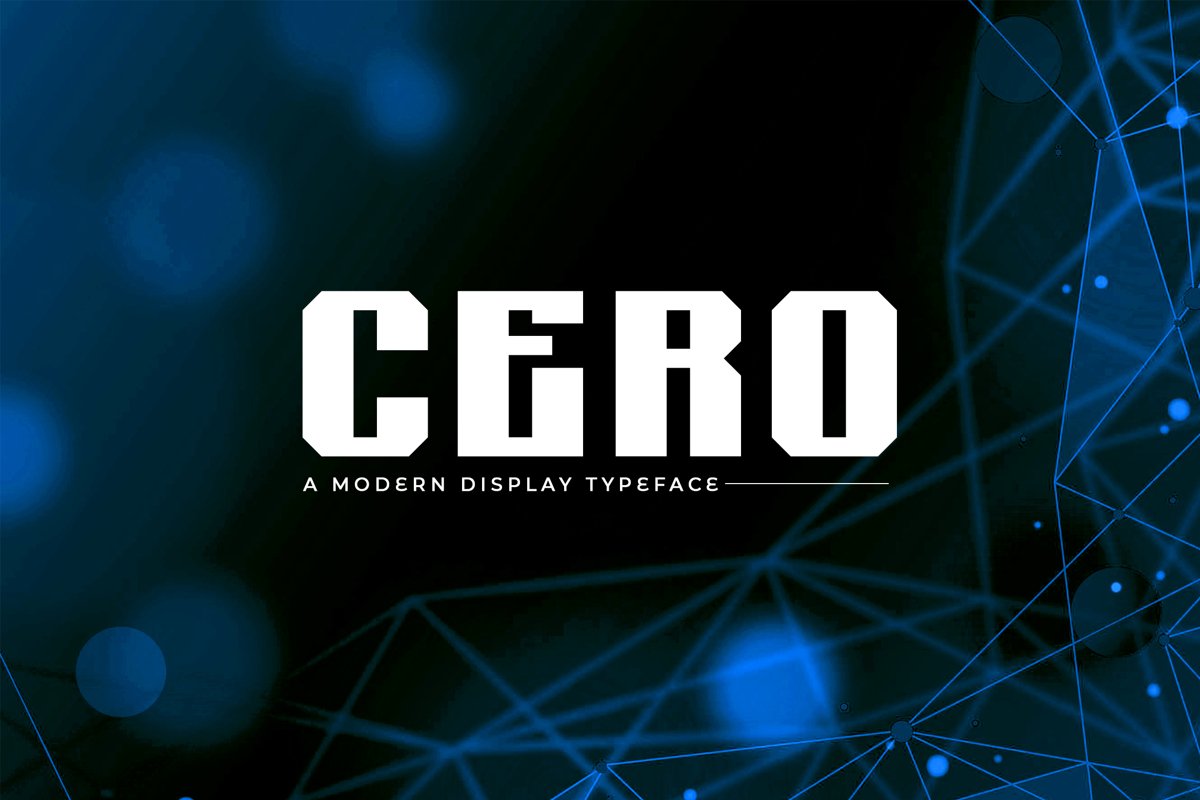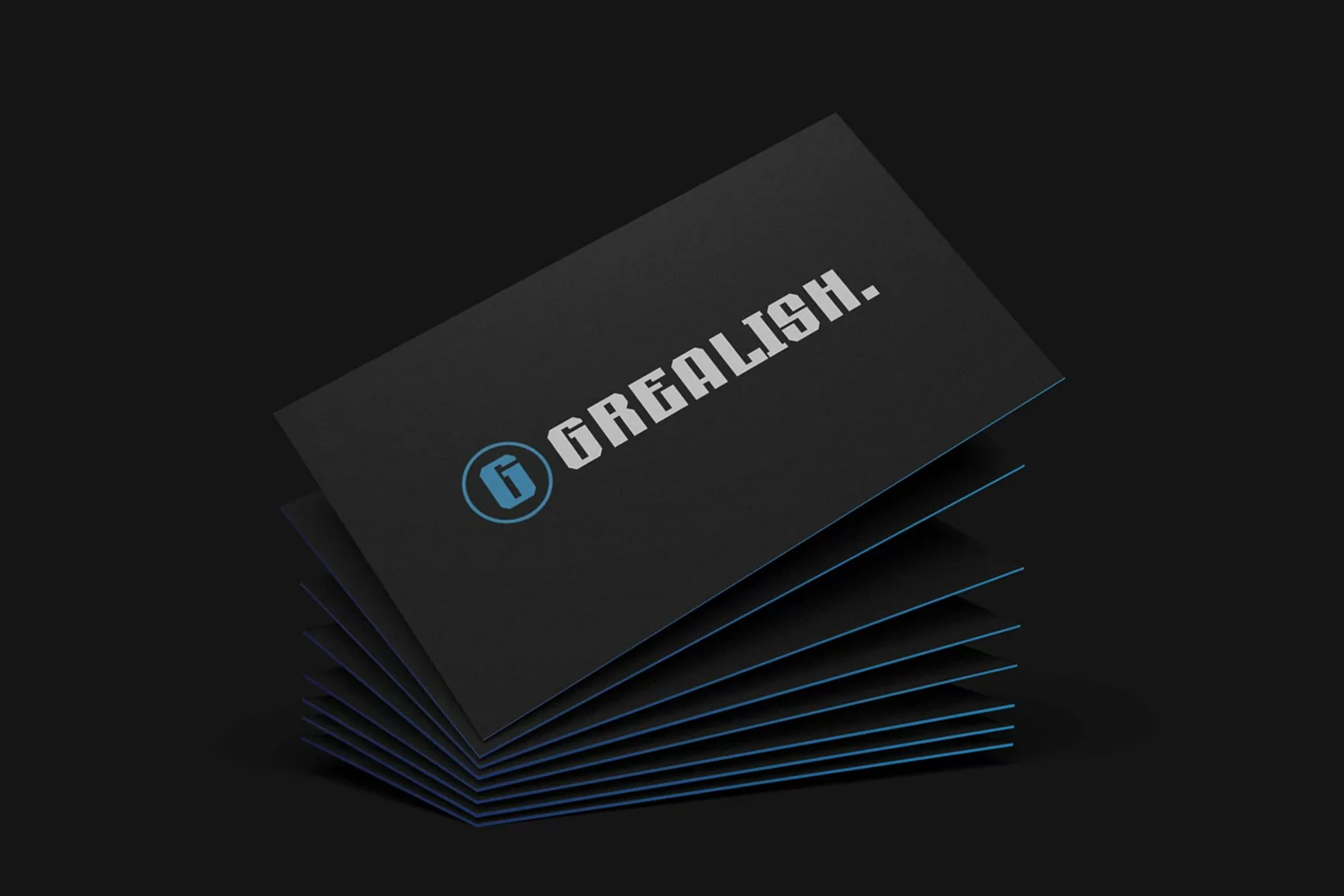
Cero is a modern display typeface. Perfect for display, poster, quotes, film, book cover, business card, packaging, merchandise, branding, logo, logotype, header, title, and many more.